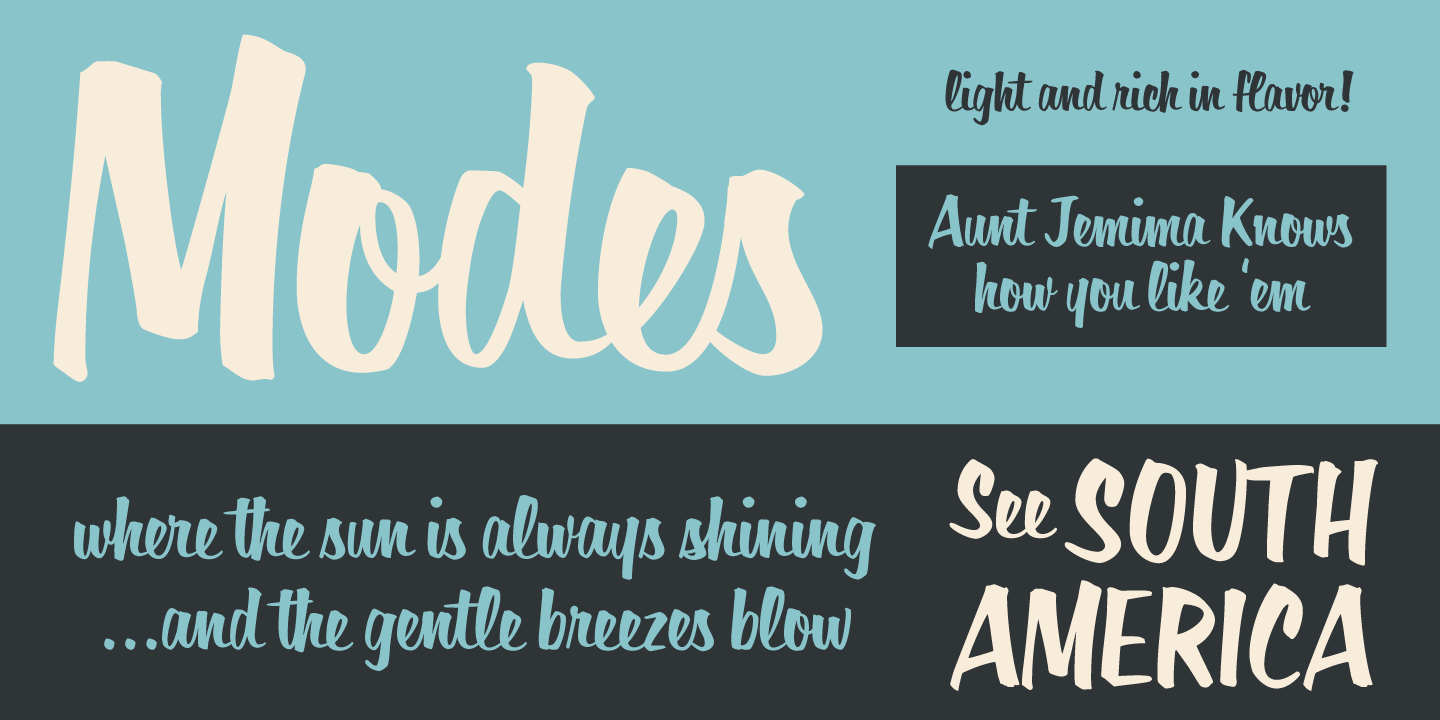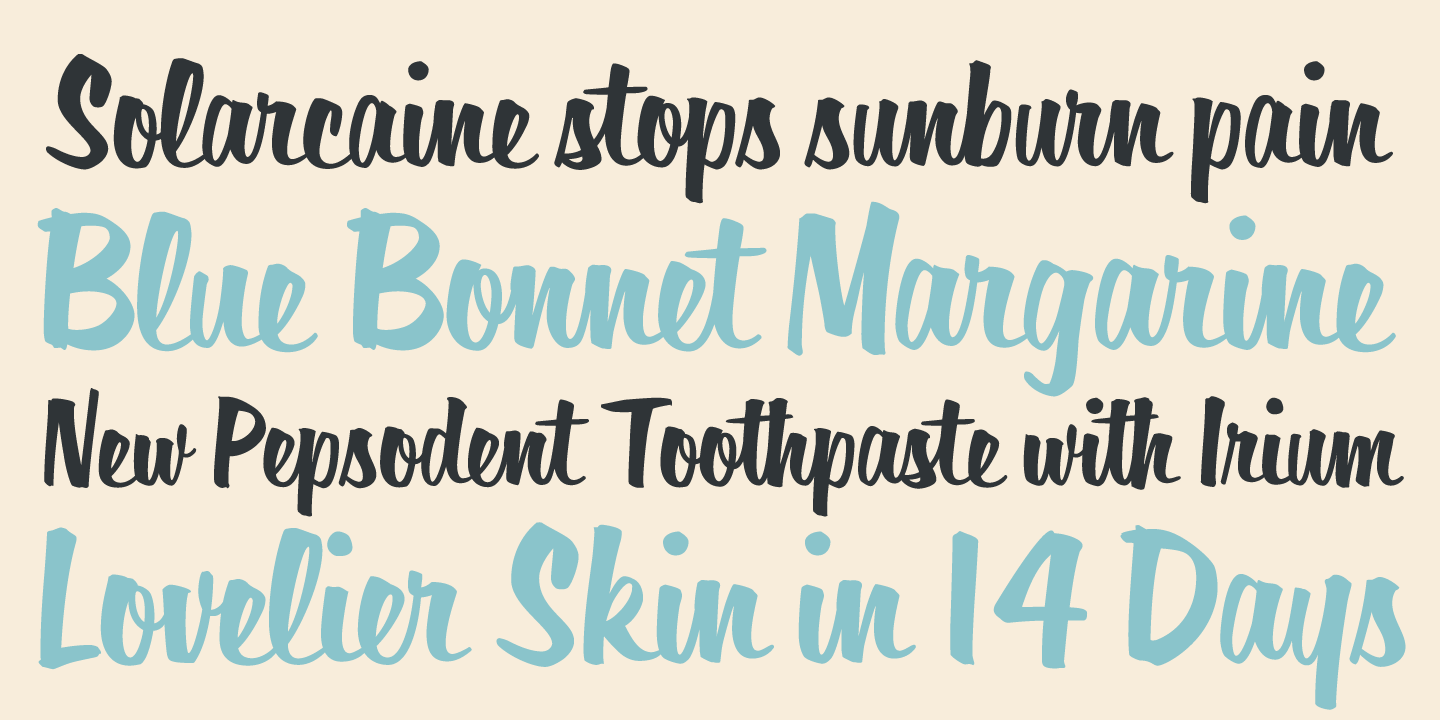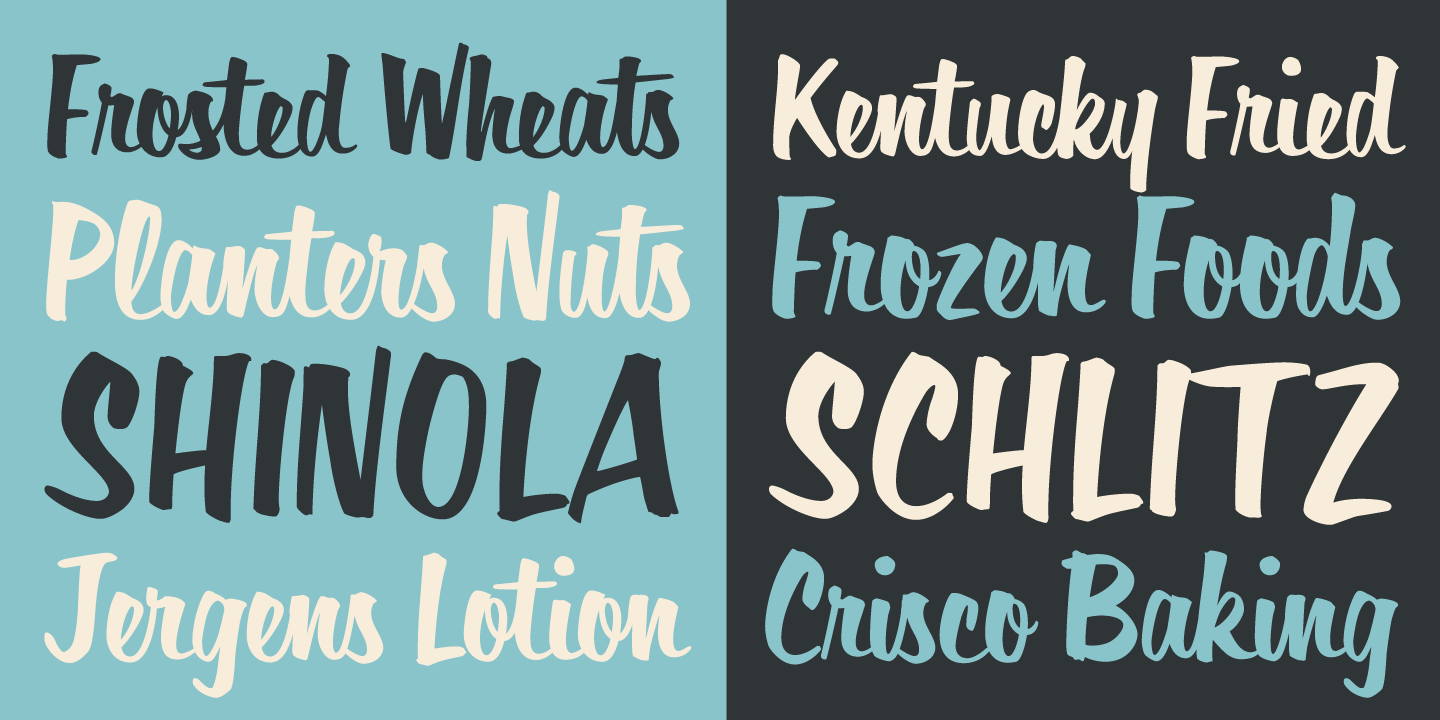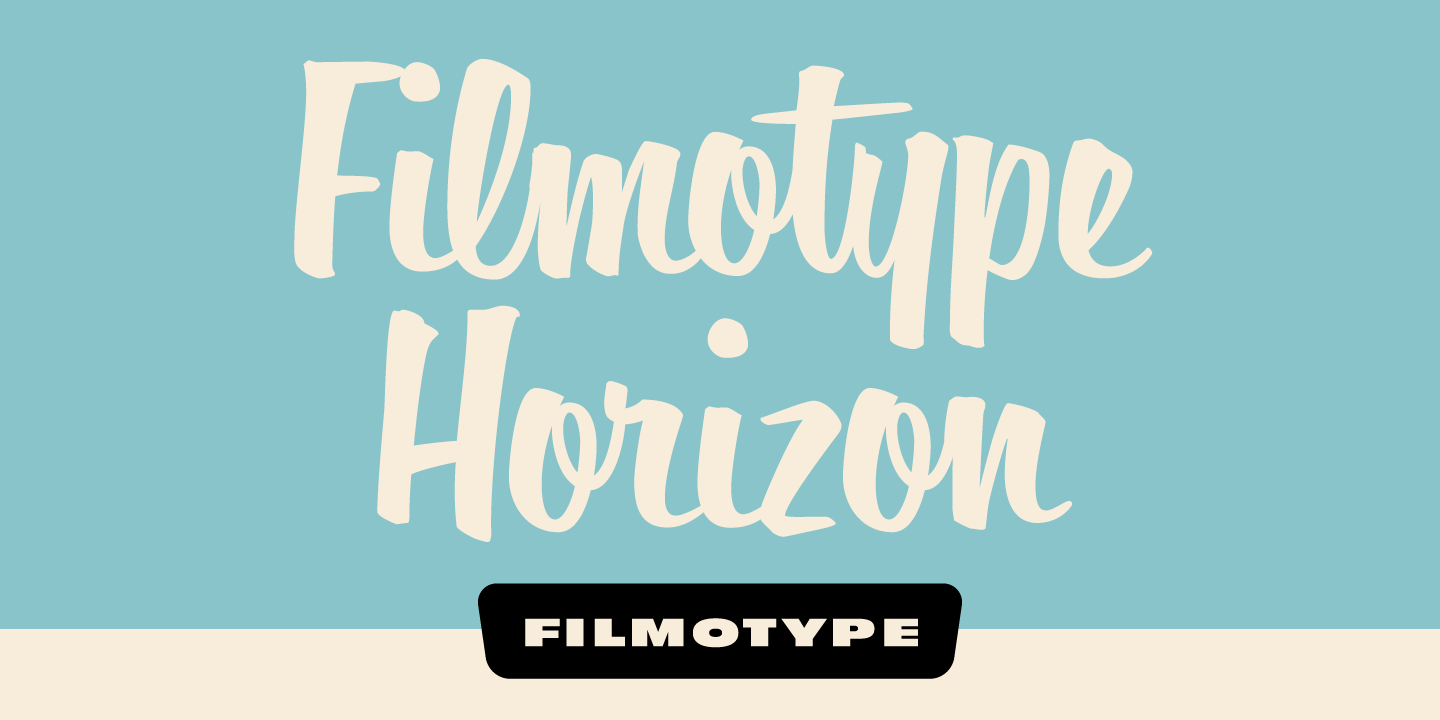
Filmotype Horizon
About Filmotype Horizon
Filmotype Horizon was among the companies earliest brush lettered casuals and was Introduced by Filmotype in the early-to-mid 1950s. This playful script was among Filmotype's most popular brush script style typefaces. Filmotype Horizon was developed…